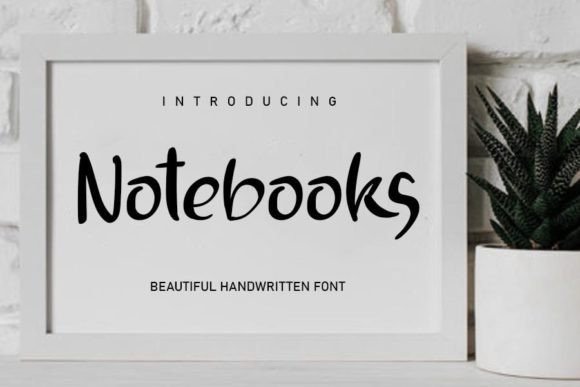
Prepare yourself to dive into the world of exquisite typography with Notebooks Font, the display font that will captivate your heart and elevate your designs to new heights. Created by the ingenious mind of shiddiq.art, this font is not just a collection of letters but a work of art, each character brimming with personality and charm.
Notebooks Font belongs to the esteemed display font family, renowned for its ability to command attention and make your words dance off the page. Its playful and slightly quirky nature makes it the perfect companion for your logos, branding endeavors, eye-catching posters, and any creative project that demands a touch of whimsy and uniqueness.
With Notebooks Font at your fingertips, you'll discover a world of possibilities. This font is not merely a tool for communication but an instrument of self-expression, allowing you to infuse your designs with your own unique style and personality. Its versatility extends far beyond the realm of digital creations, seamlessly adapting to the physical world for stunning print projects that will leave a lasting impression.
Imagine your logos adorned with Notebooks Font, their playful curves and charming quirks inviting customers to engage with your brand. Picture your posters transformed into captivating works of art, each letter a visual masterpiece that draws the eye and sparks the imagination. With Notebooks Font, your designs will transcend the ordinary, becoming unforgettable expressions of your creativity.